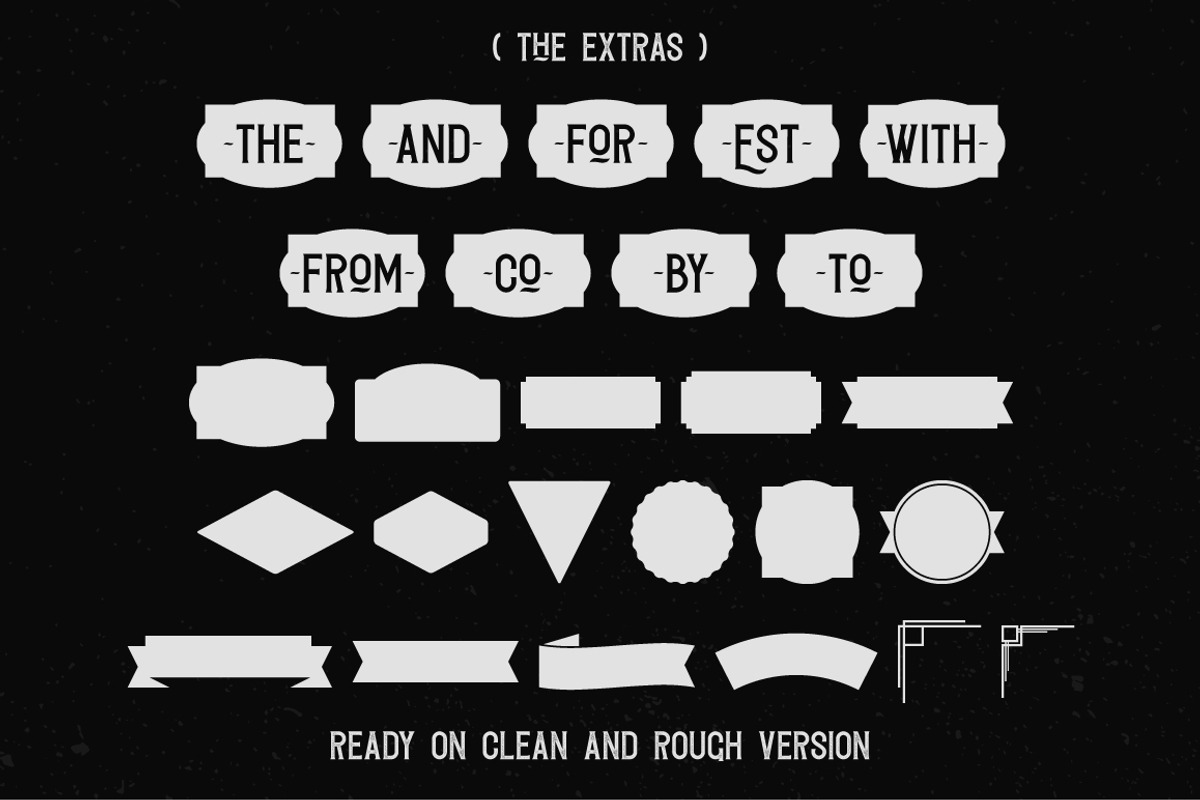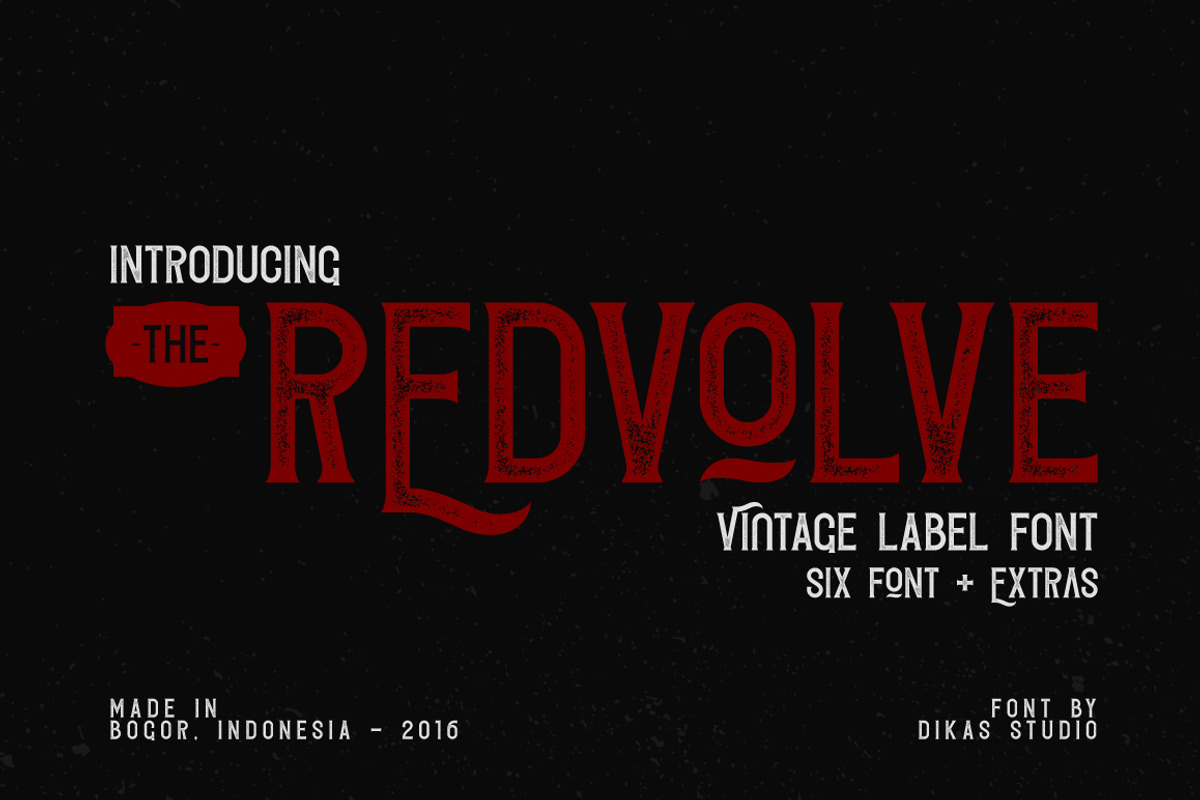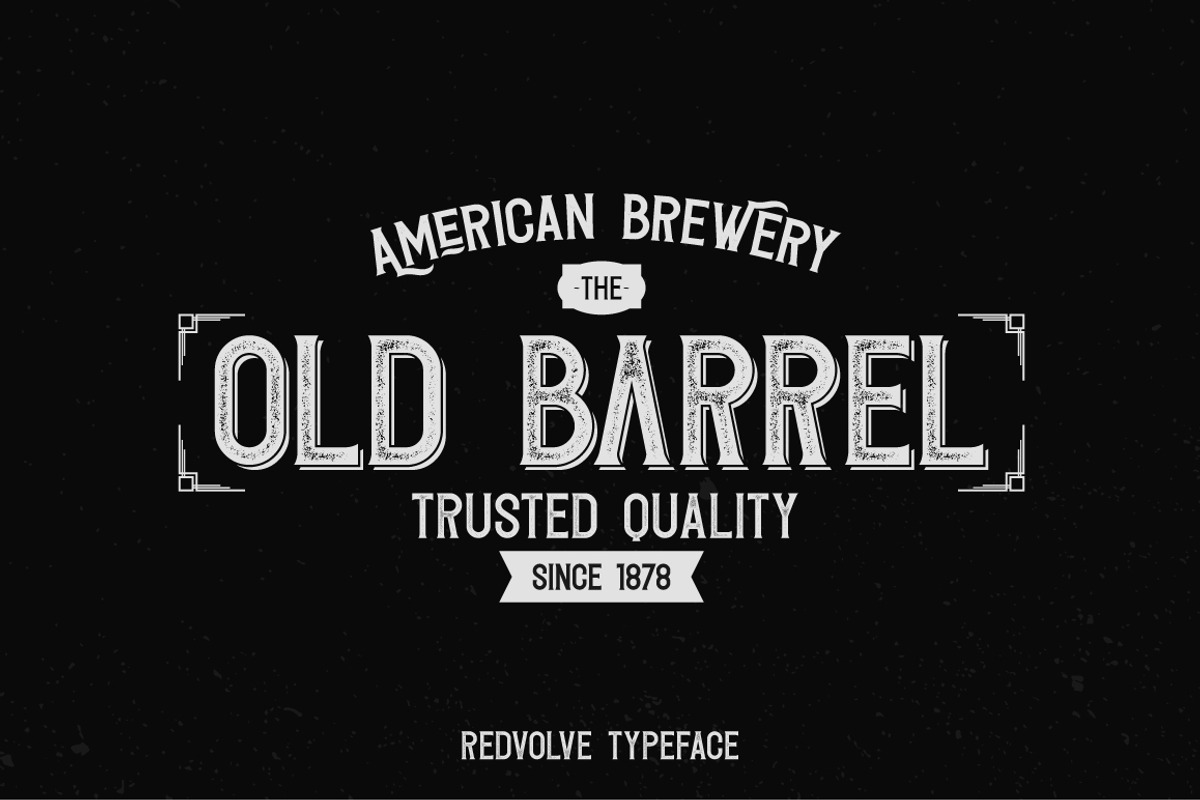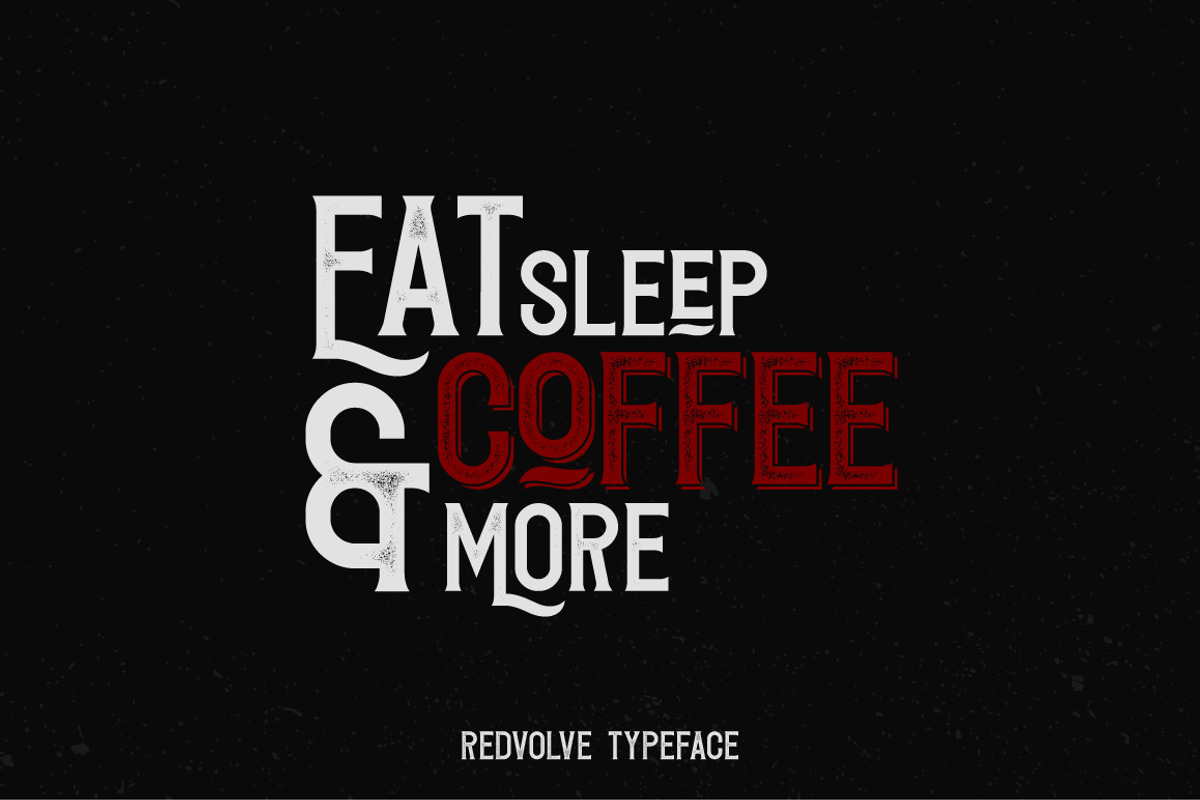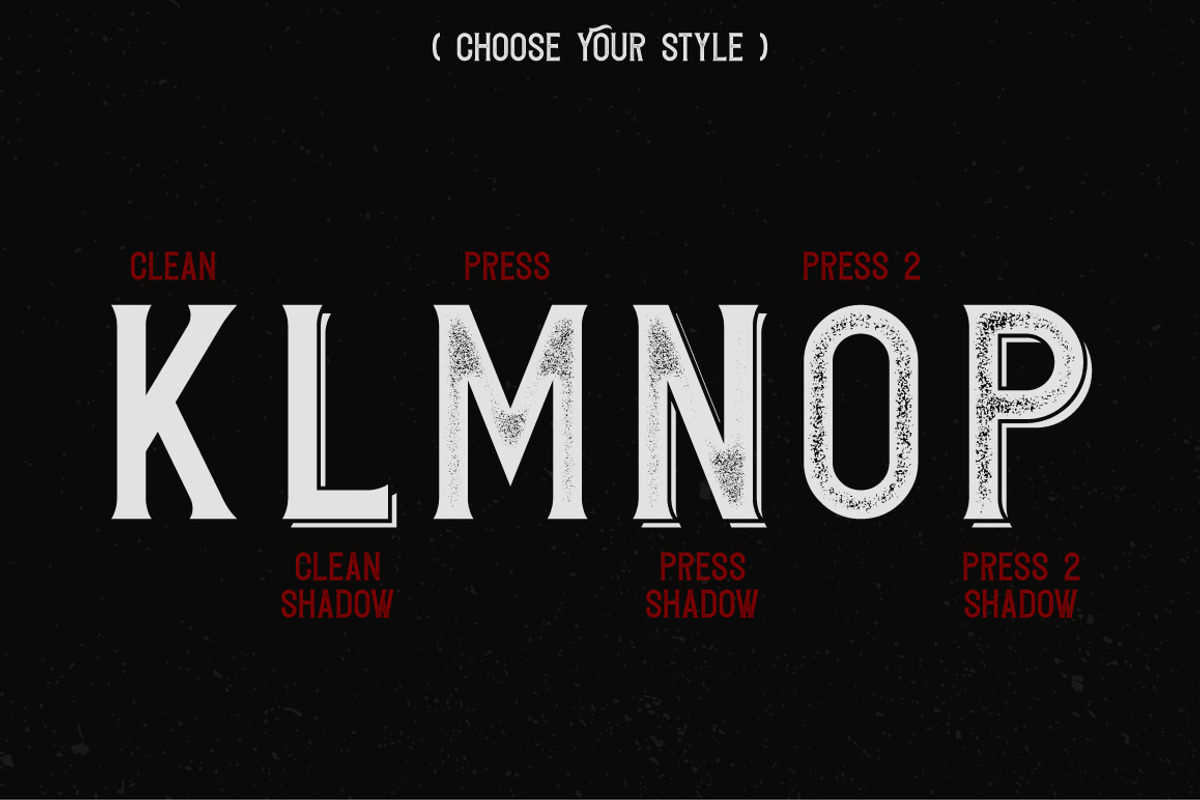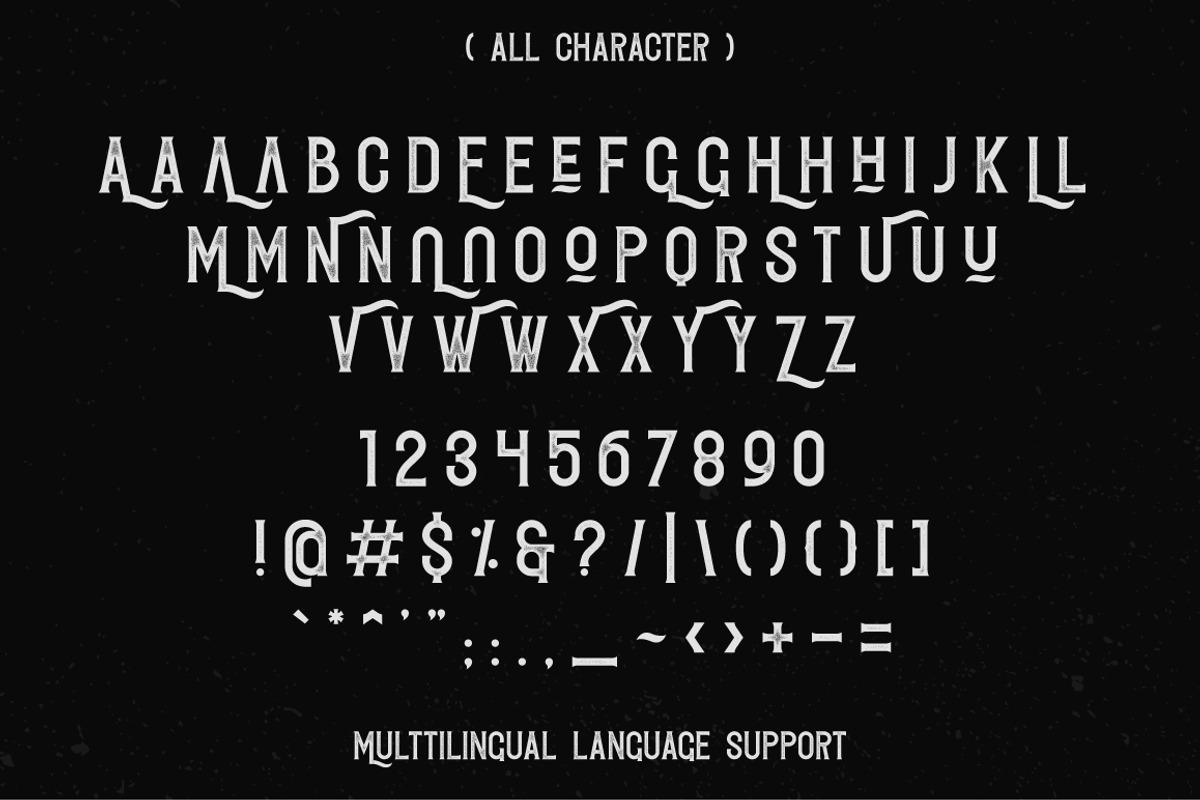
Redvolve Typeface - 6 Fonts + Extras
Hello friend, let me introduce my product Redvolve Typeface - 6 Fonts + Extras
Yes, Redvolve have 6 Style : Clean, Shadow, Press, Press Shadow, Press2 & Press2 Shadow with vintage character inspired from beer and brewery and you can mix any alternate character and extras ornament, its very helpfull to get Vintage design. Suitable and applicable to create vintage design, branding, logos, product packaging, invitation, qoutes, t-shirt, label poster etc.
Lowercase
Punctuation and Number
Multilingual Language
Alternate Character
Extras Ornament and Catchword